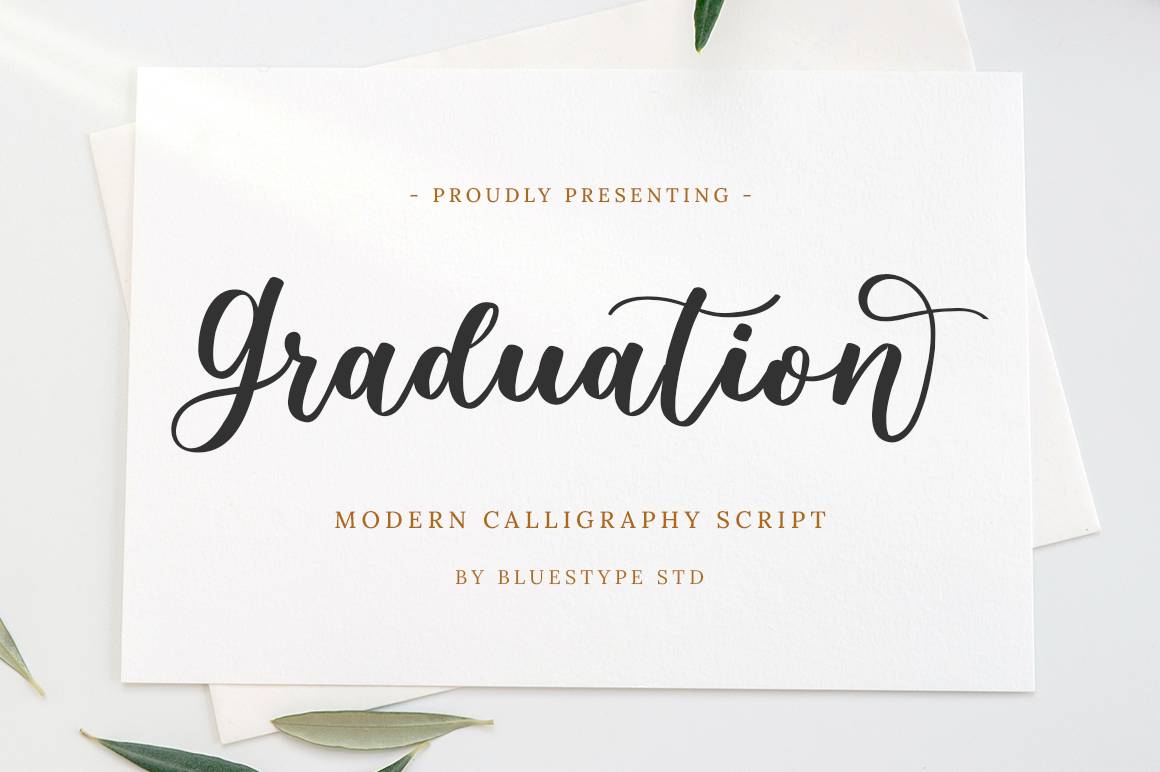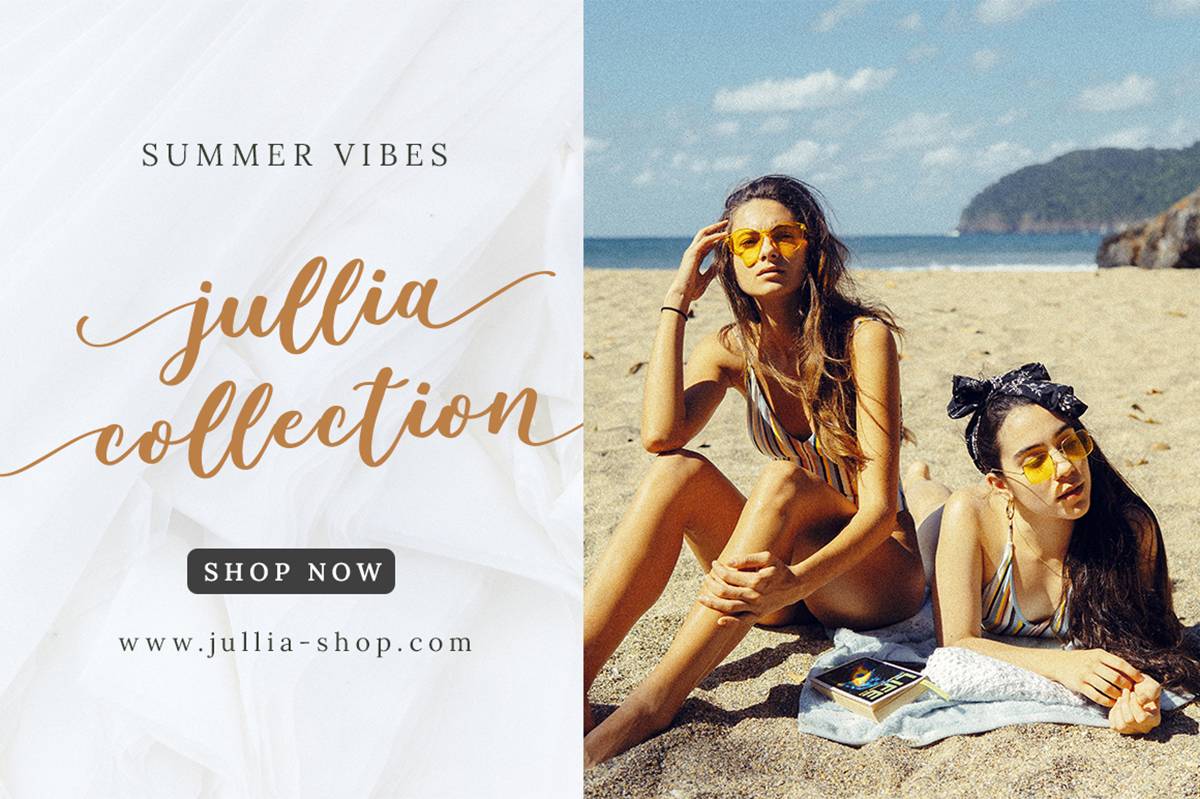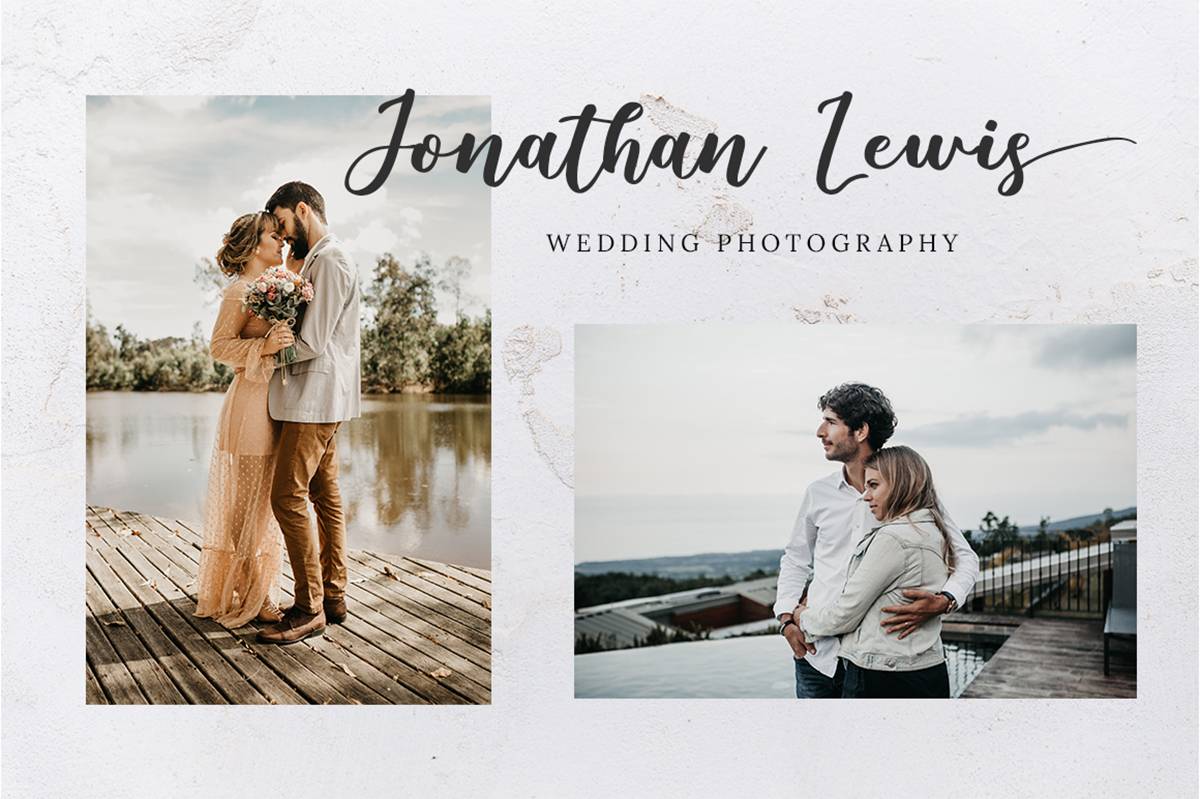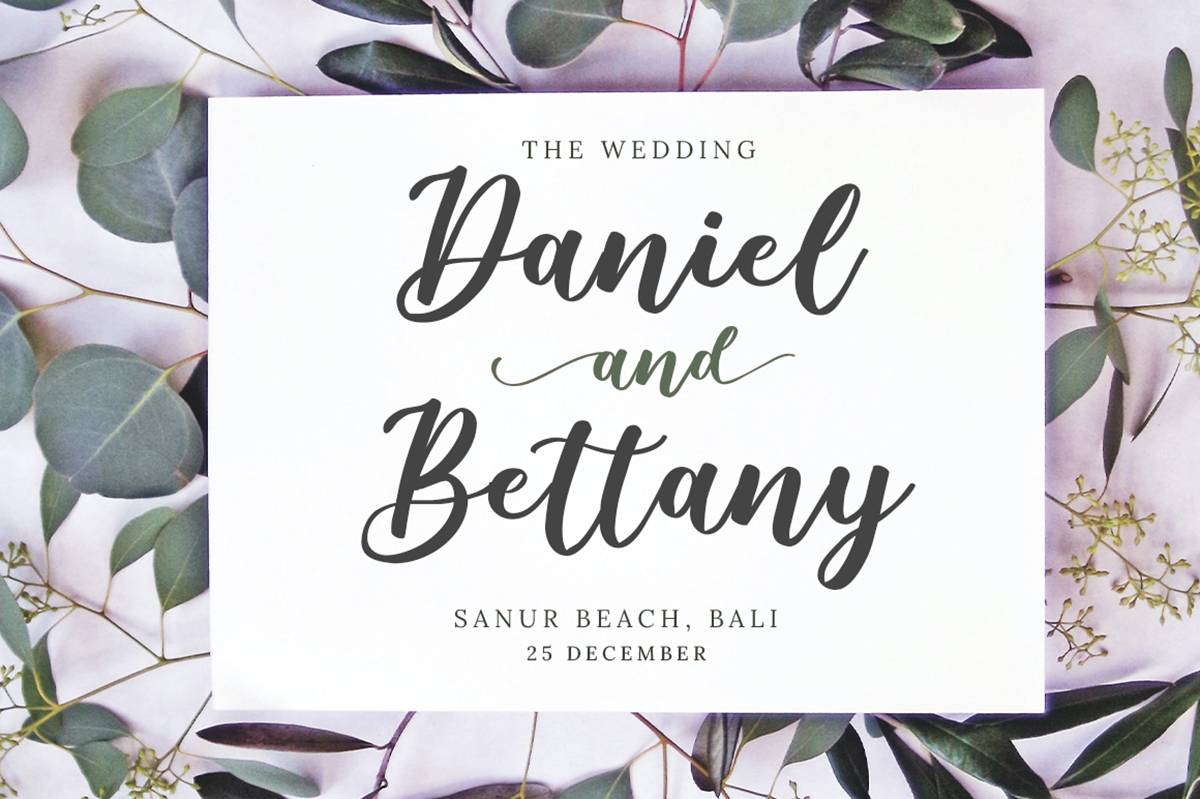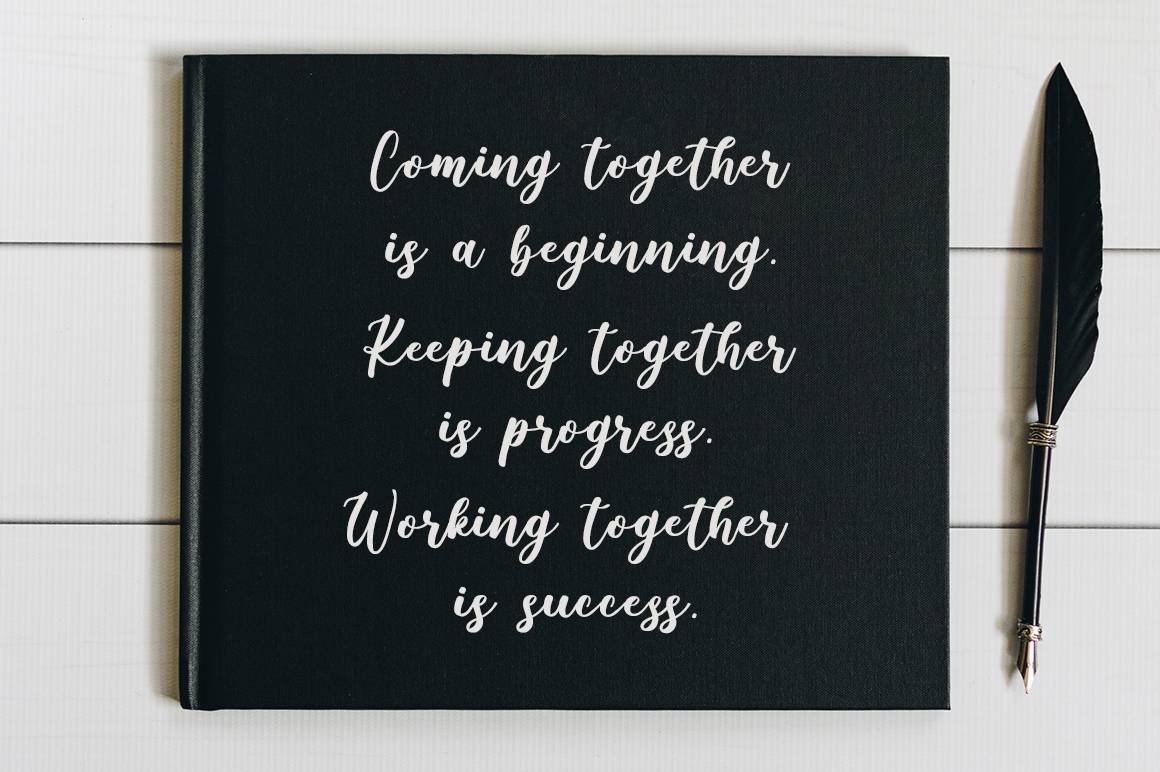
Graduation Font is an elegant, flowing script with a lively and personable feel, characterized by its smooth, connected letterforms and subtle stroke contrast. This font works beautifully for invitations, branding, and decorative headlines where a touch of sophistication and warmth is desired. Its playful yet refined style makes it ideal for creative projects that need a friendly, handcrafted look.
Graduation Font
About Graduation Font
| Font family | Graduation Font |